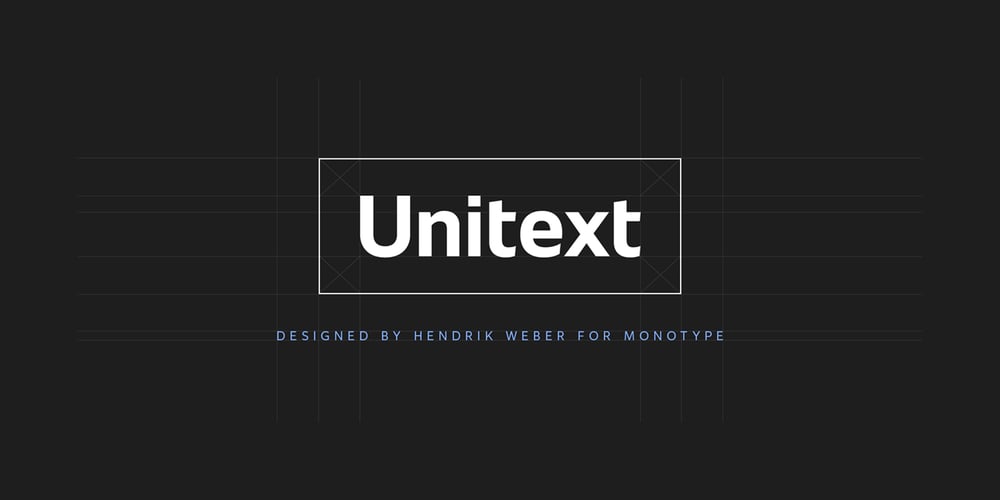
Unitext Font Family was designed by Jan Hendrik Weber and published by Monotype. Unitext contains 14 styles and family package options. Created with the needs of branding design in mind, Jan Hendrik Weber’s Unitext is a crisp, clean typeface that functions well across print and online use. It blends humanist and grotesque qualities, adopting a style that the designer describes as “neo grotesque”. Narrow spacing is what sets this typeface apart, however it also uses open counters and angled details to boost readability. “The ideal font should work at every touchpoint,” says Weber. “And designers shouldn’t need an introduction or a set of rules on how to handle this typeface. Unitext allows designers to work without explanation.” The Unitext family includes 7 weights, spread across 14 fonts with extensive Western, Central and Eastern European language support. Unitext Variables are font files which are featuring one axis and have 14 names instances: Hairline, Hairline Italic, Extralight, Extralight Italic, Light, Light Italic, Regular, Italic, Semibold, Semibold Italic, Bold, Bold Italic, Black, Black Italic